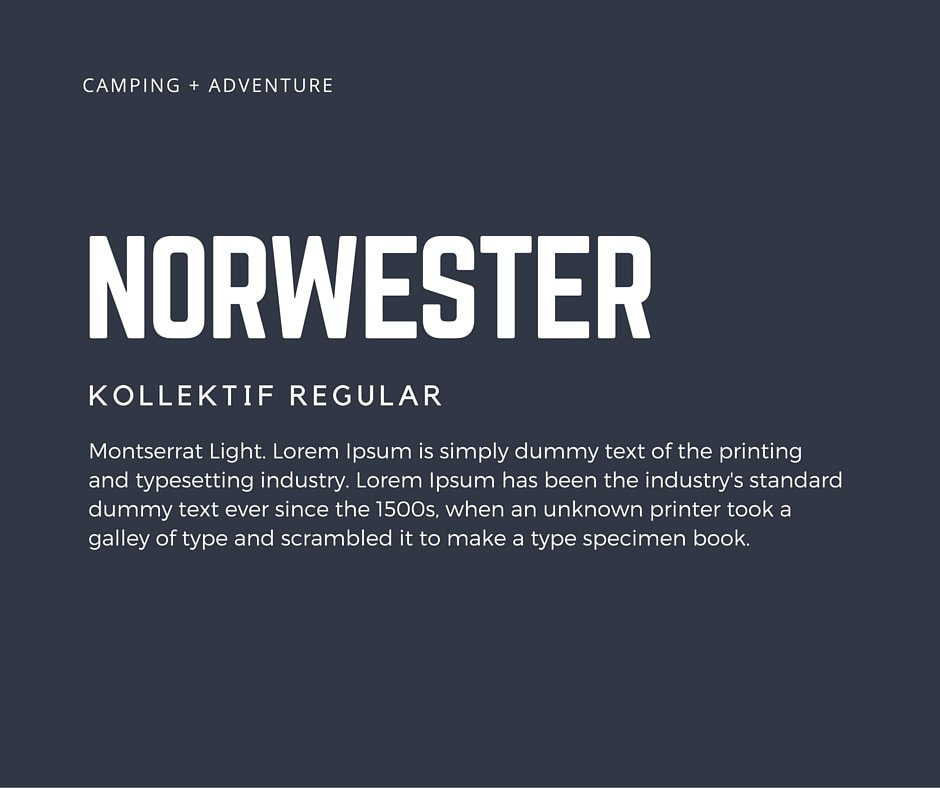
This may seem obvious but some typefaces are really hard to read, especially if they are on screen. For example the beautiful typeface abril comes as abril text and abril display.
Incredible How To Choose The Best Typeface For Logo Design, Choosing a typeface can be tricky. The more you notice, the more you'll know.
You choose the arial typeface that includes arial regular, arial bold, arial italic, etc. This is why choosing the best font and striking the optimal balance is likely to ensure that your brand remains clear, and its message is easy to understand. Serif, sans serif, and decorative or display. There are many factors to consider when it comes to legibility.
Choosing the Best Logo Font for Your Small Business A serif typeface that has enough air overall (i.e., white space), has good typographic colour, and preferably low contrast would be appropriate here.
In the first case, the user interacts with the text for an extended period of time, making reader’s fatigue the main problem. If your logo does not read clearly it can harm you as a brand. Look for legibility and versatility. The more you notice, the more you'll know.
Times new roman is commonly used in newspapers; When browsing fonts for a logo design, it’s important to find a typeface that matches the personality of your brand. Use display fonts to show the vibe of your project and attract your reader. In this guide, we’ll refer to three different categories of type when choosing font pairings. How to Choose the Best SansSerif Font for Your Website.
It’s best to avoid super trendy typefaces when picking a logo font. Your task is to find a typeface that will connect the text with the graphics to achieve the corporate objective. For example, times new roman and arial are different typefaces. This is why choosing the best font and striking the optimal balance is likely to ensure that your brand remains clear, and its message is easy to understand. The Best Website Fonts and How to Choose the Right Ones.
When choosing the right typeface for your business, remember the most rudimentary features. In reference books, however, reader’s fatigue is not a concern. Look for legibility and versatility. This may seem obvious but some typefaces are really hard to read, especially if they are on screen. How to Choose the Right Fonts for Your Brand Graphic design tips.
Use display fonts to show the vibe of your project and attract your reader. However, for the purposes of this post, we can just call them fonts because that is a more widely recognizable term. How to choose the best typeface in adobe fonts choose legible fonts. The business fonts should be readable, even from a distance, regardless of the medium type. How To Choose The Best Fonts For Your Brand.
Typography is vital for communication in design. What looks good in print does not always look the best on a computer screen. Type should be in your consciousness, not something you only think about when you need to use it. They can tell you the difference between ‘font’ and ‘typeface’, between ‘mean line’ and ‘baseline’. How to Choose the Best Fonts A Teachable Teacher fonts.
The next factor to consider is versatility for when your business scales. The typefaces to choose for this kind of text can be more striking. They might fret over the tracking of a particular font, or cringe at subtle kerning miscues that an untrained eye would gloss over. For a title, headlines or pull quotes. How to Choose the Right Fonts for your Design Project Flowchart.
There are many factors to consider when it comes to legibility. These are the three key criteria your typeface must meet, and all of them add up to a single dogma you should be familiar with: Look for legibility and versatility. The typefaces to choose for this kind of text can be more striking. Logo Design Fonts How to Choose the Best Typeface for Your Logo.
There are many other beautiful typefaces out there for people to use. Creating a logo for a clothing boutique? Different typefaces have different purposes so it is important to determine what it is that you want your type to do or say. How to choose a typeface? How to Choose the Best Font Pairing for your Brand — Mariah Althoff.
It’s best to avoid super trendy typefaces when picking a logo font. Less is more, and clarity and simplicity is not at odds with creativity. In the first case, the user interacts with the text for an extended period of time, making reader’s fatigue the main problem. However, for the purposes of this post, we can just call them fonts because that is a more widely recognizable term. How to properly use Canva Graphic Tool & How to choose the Best Font.
This is why choosing the best font and striking the optimal balance is likely to ensure that your brand remains clear, and its message is easy to understand. Look for a font with a variety of styles. Look for legibility and versatility. A serif typeface that has enough air overall (i.e., white space), has good typographic colour, and preferably low contrast would be appropriate here. How to Use Fonts on Your Website Your website, Website, Business branding.
To Serif Or Sans Serif, That Is The Question.
Creating a logo for a clothing boutique? Abril text has sturdier strokes, stronger serifs and is less delicate. The beauty and complexity of type, combined with an inexhaustible supply of options to evaluate, can make your head spin. The next factor to consider is versatility for when your business scales.